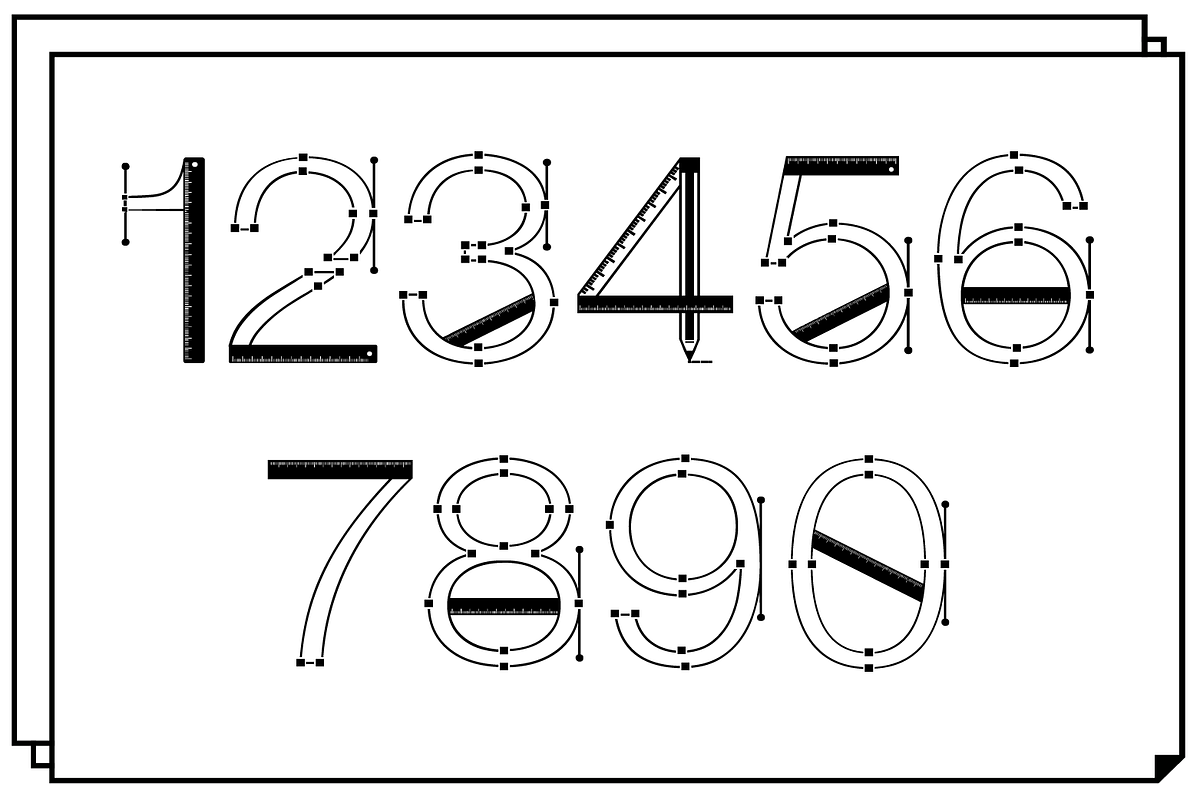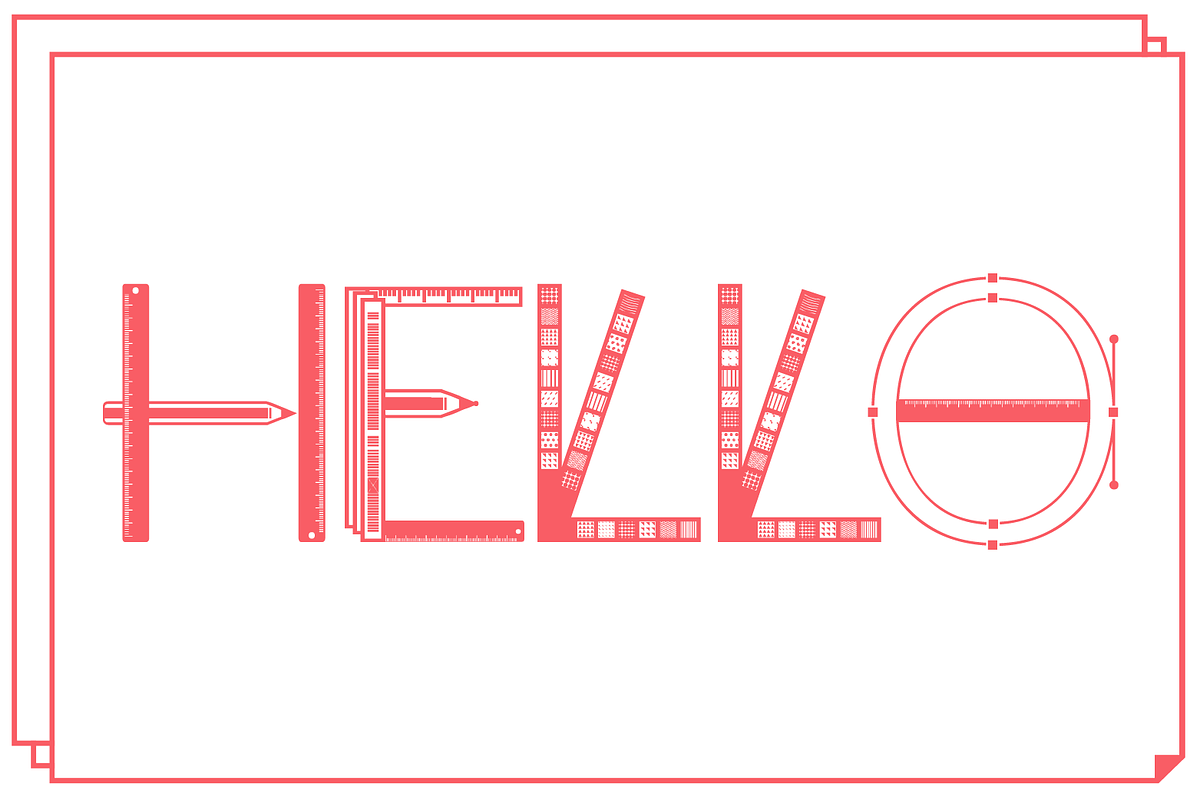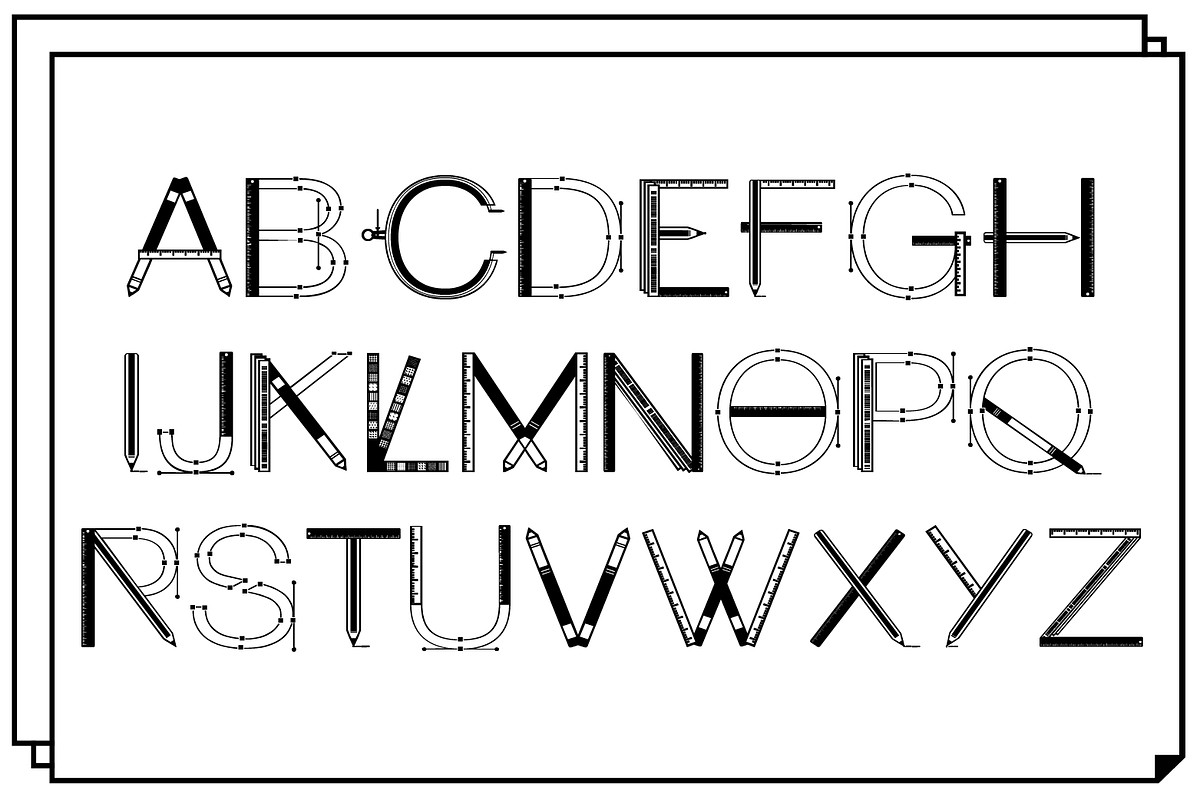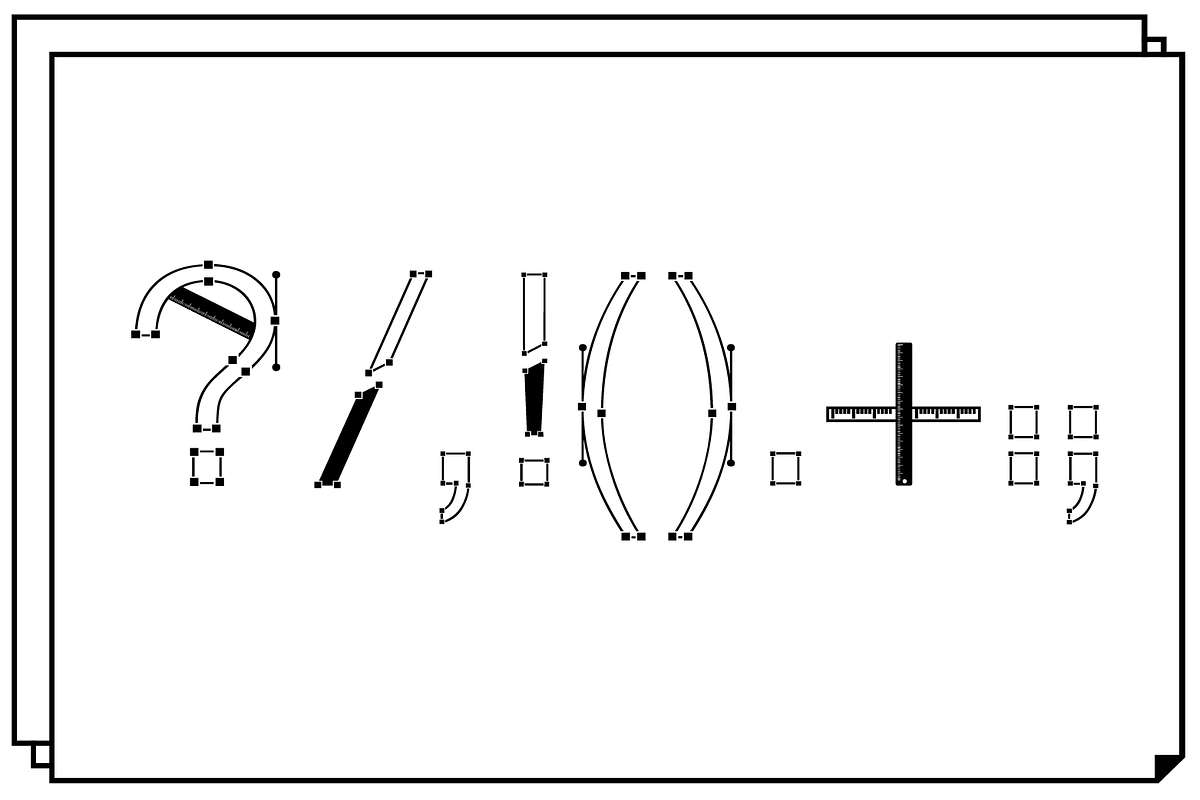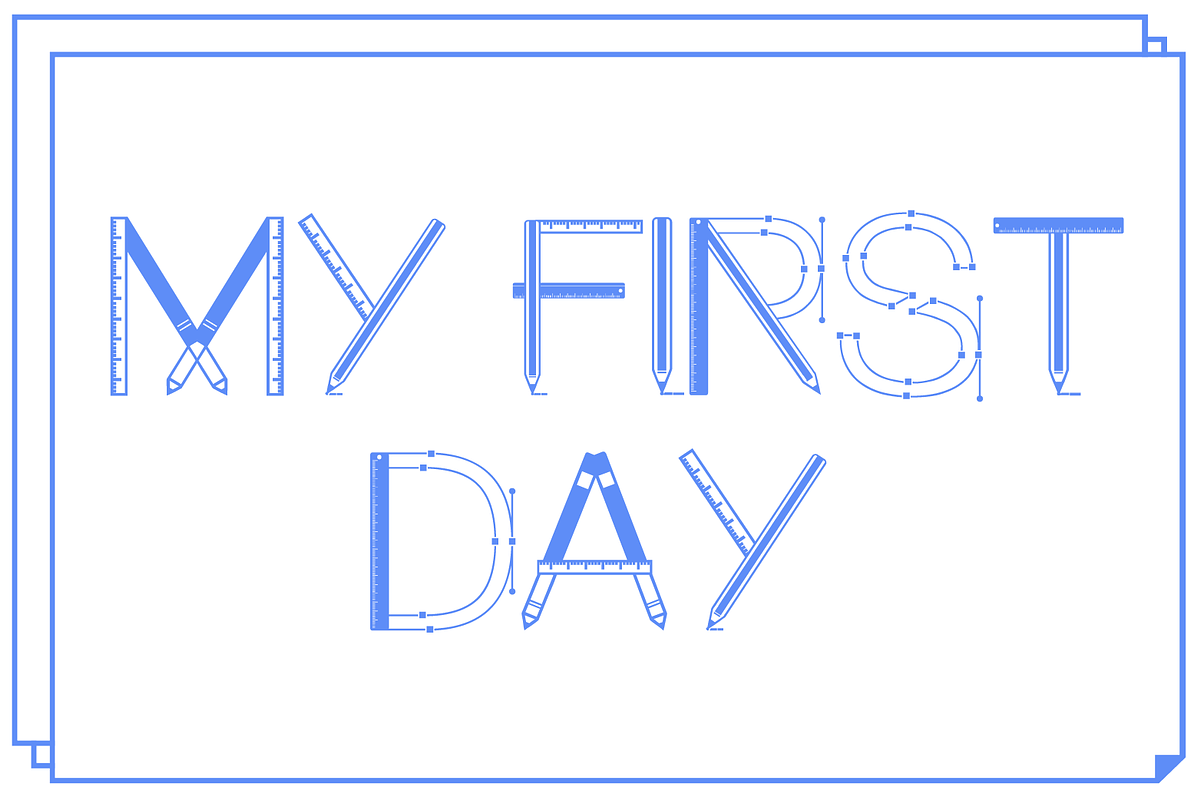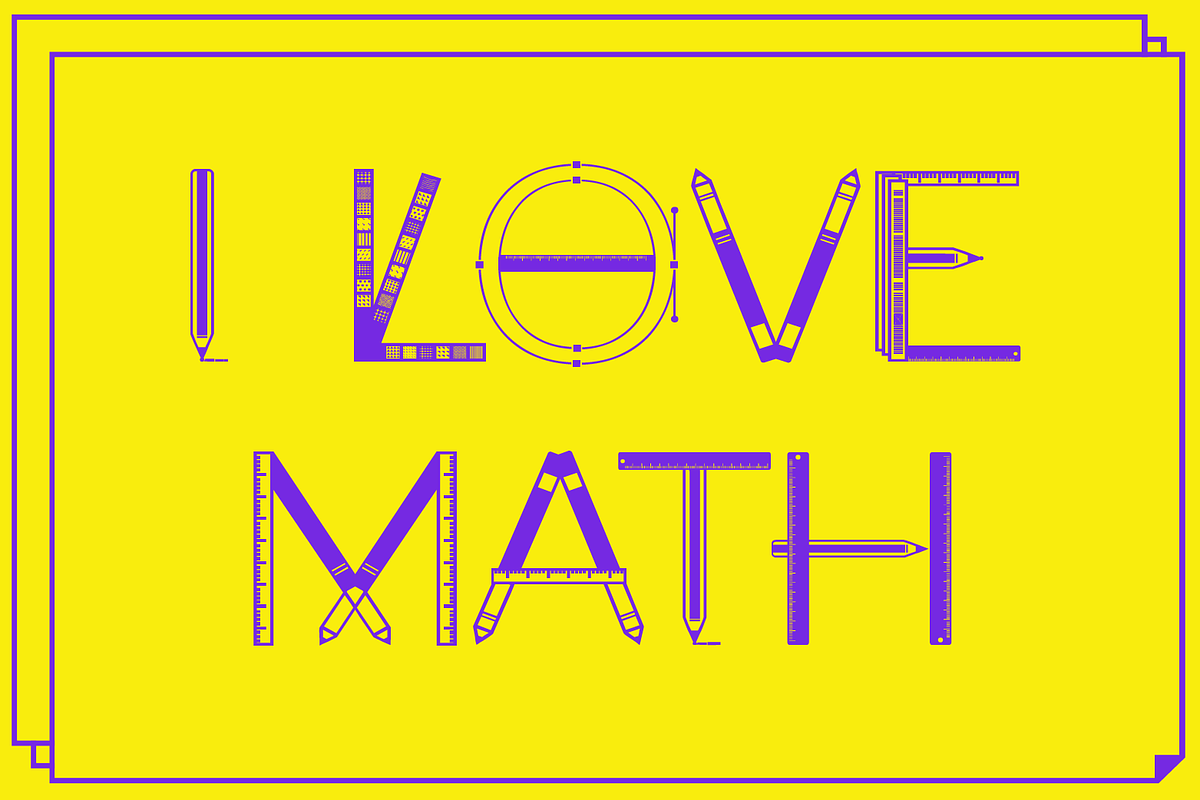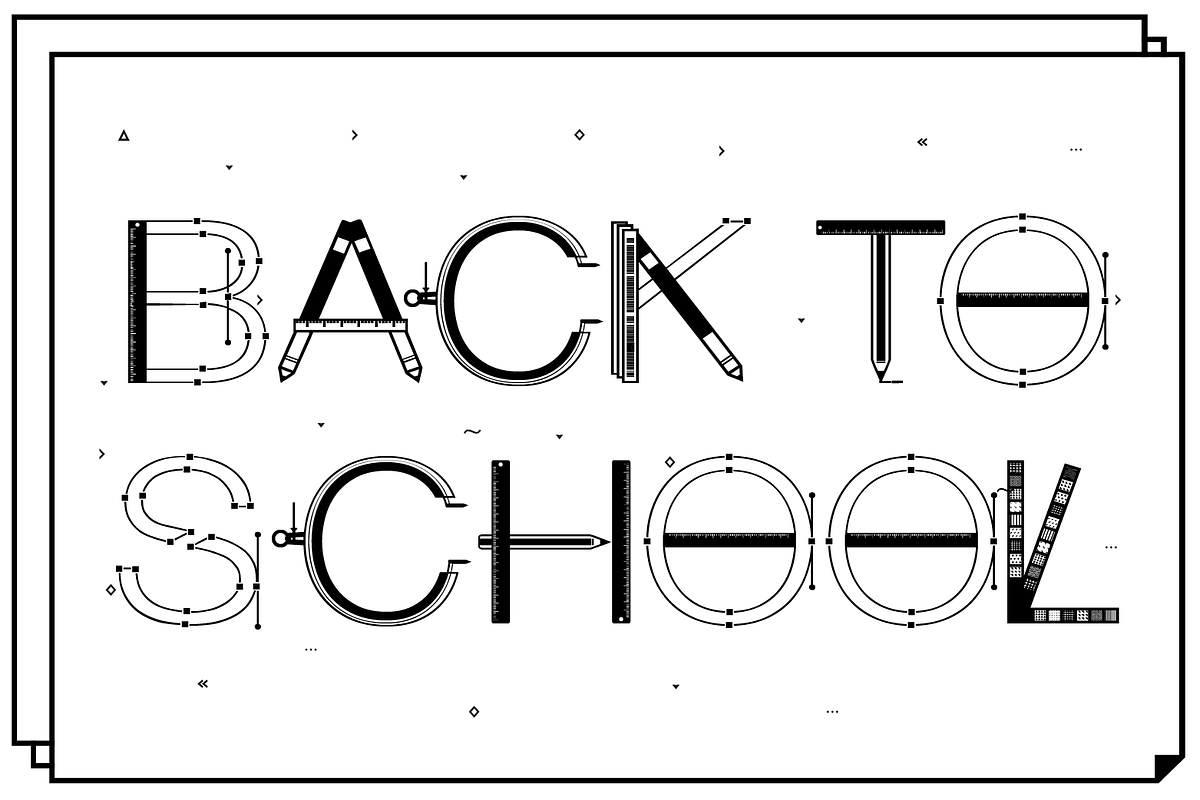
Craft Font
Beautiful typography with artistic elements, ideal for school projects.
Why Craft Font is worth a look
Craft Font by yaisalinas fits naturally into Branding, posters, packaging, typography.